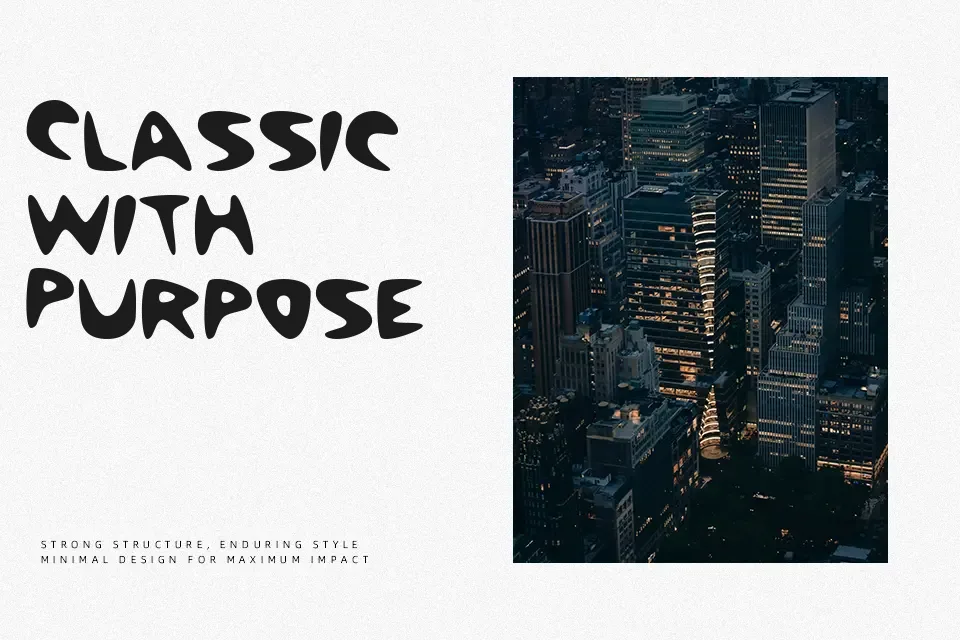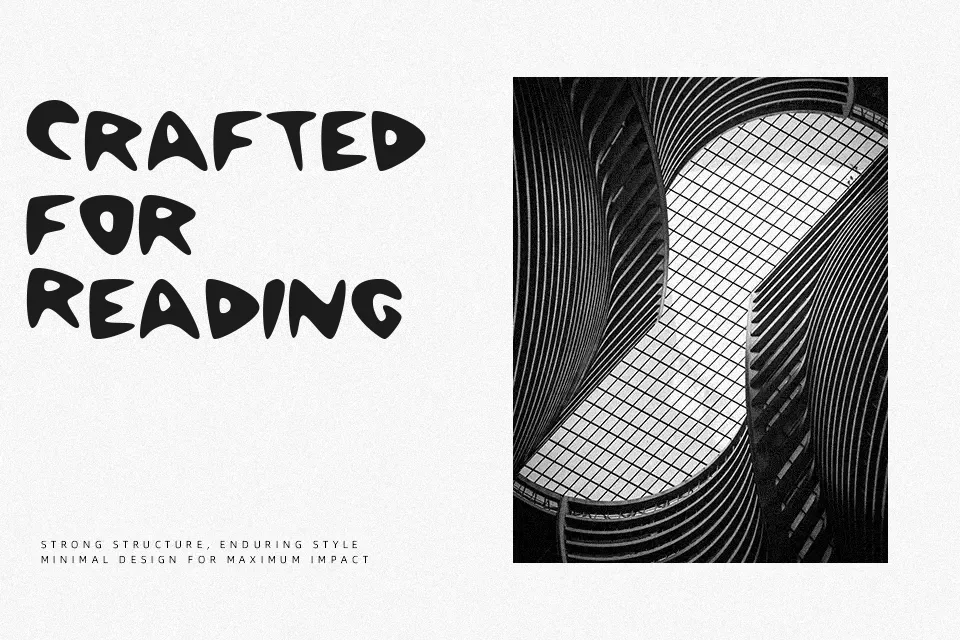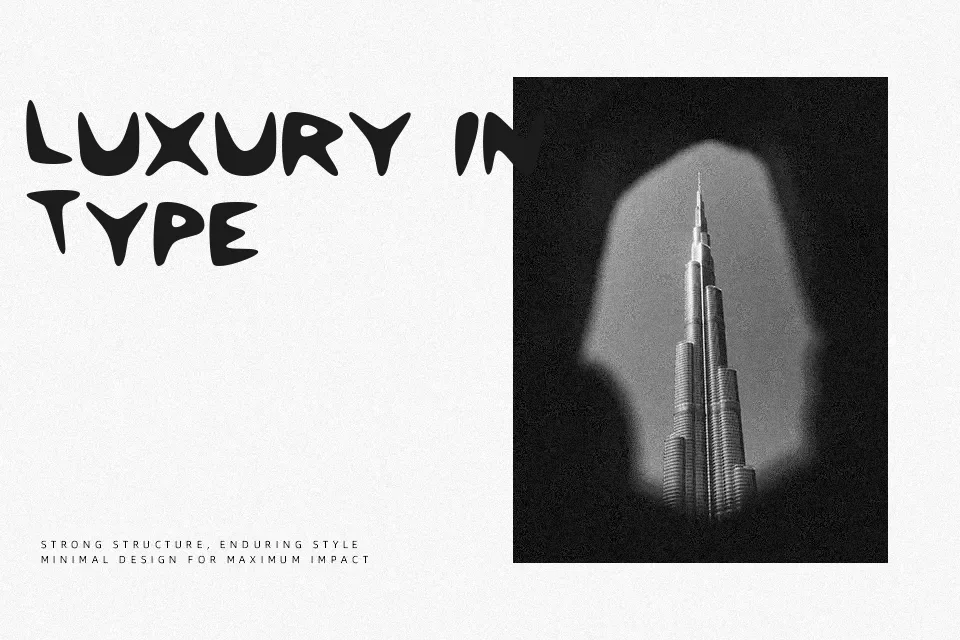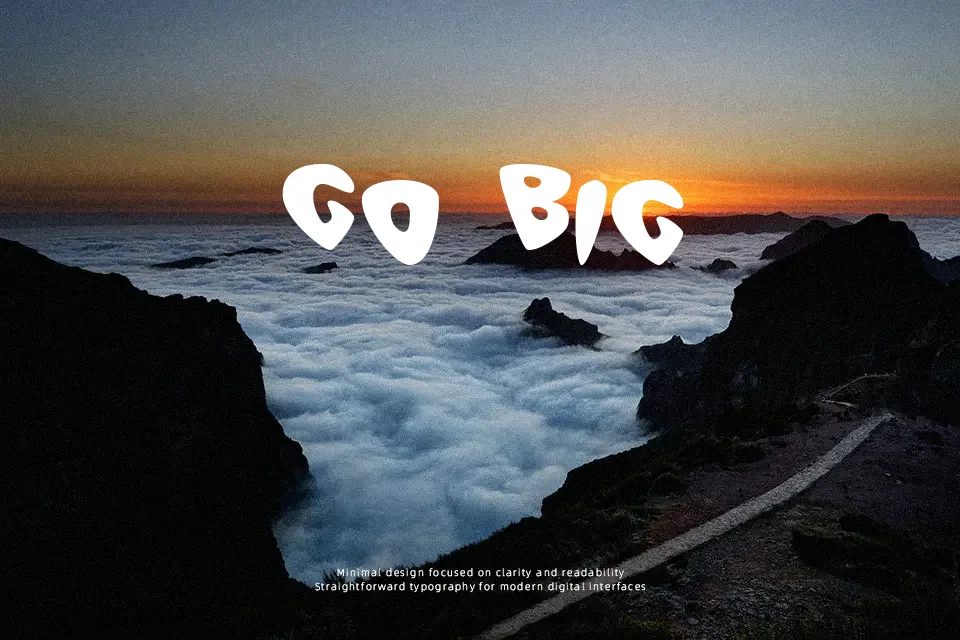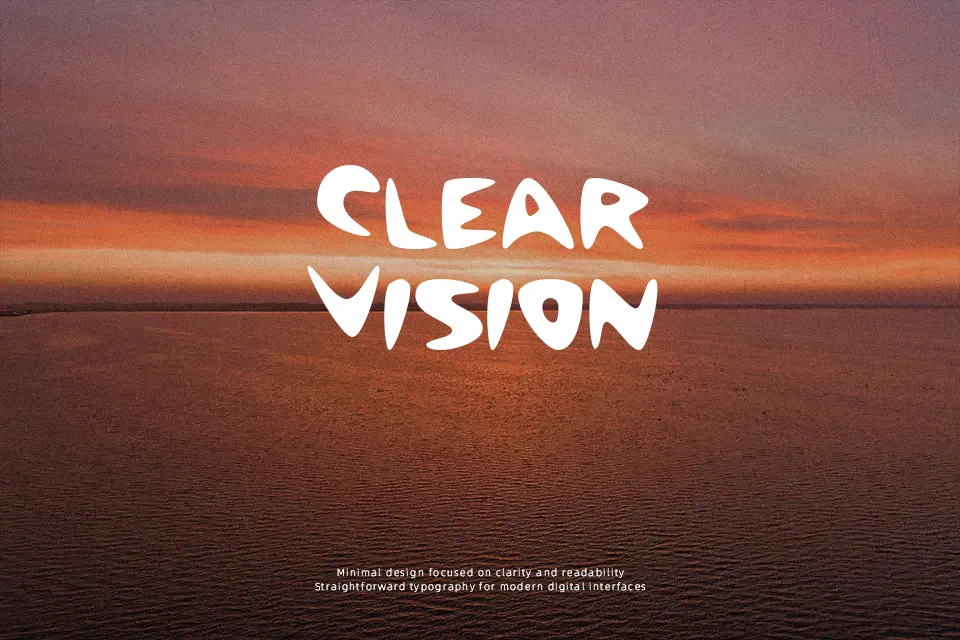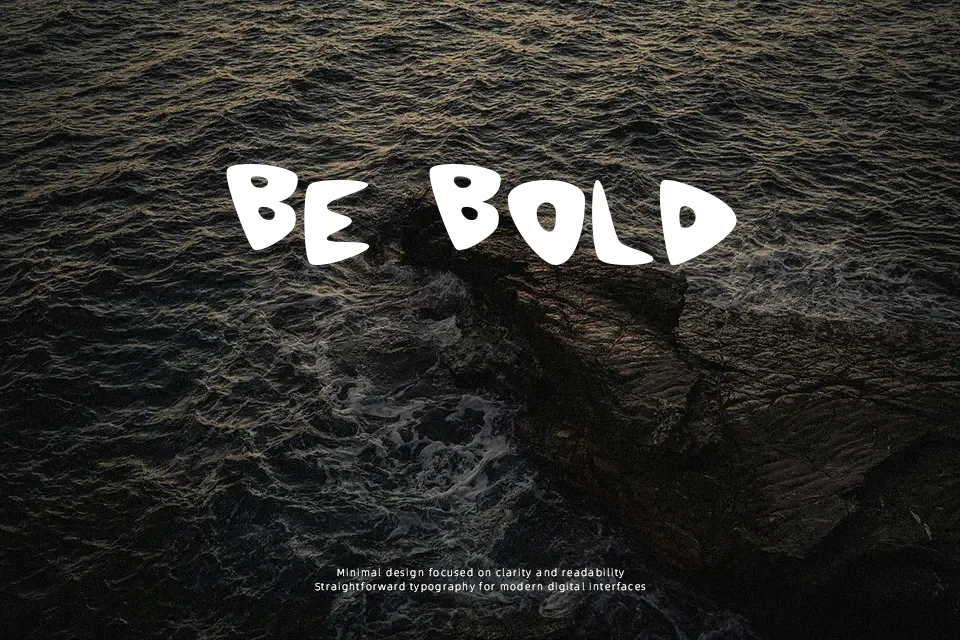
Cheap Motel Font
Designed by Marty Bee
Starting with dynamic structural proportions, Cheap Motel Font combines low stroke contrast, sweeping outer curves, and rounded terminals to establish an informal 1950s look. The letterforms rely on compact spacing and thick stems, producing tightly knit words that maintain strong visual weight in headline applications. Generous inner loops and quirky character alignments make the typeface an effective option for vintage roadhouse signage, comic book covers, and retro product packaging. However, the heavy weight and playful variations decrease reading comfort at smaller scales, meaning the design is less suitable for continuous body text, mobile interfaces, or dense editorial layouts.
Best For: retro diner signage, animated video titles, comic book covers, novelty apparel graphics
Not Ideal For: continuous paragraph text, mobile user interfaces, corporate annual reports, dense spreadsheet tables